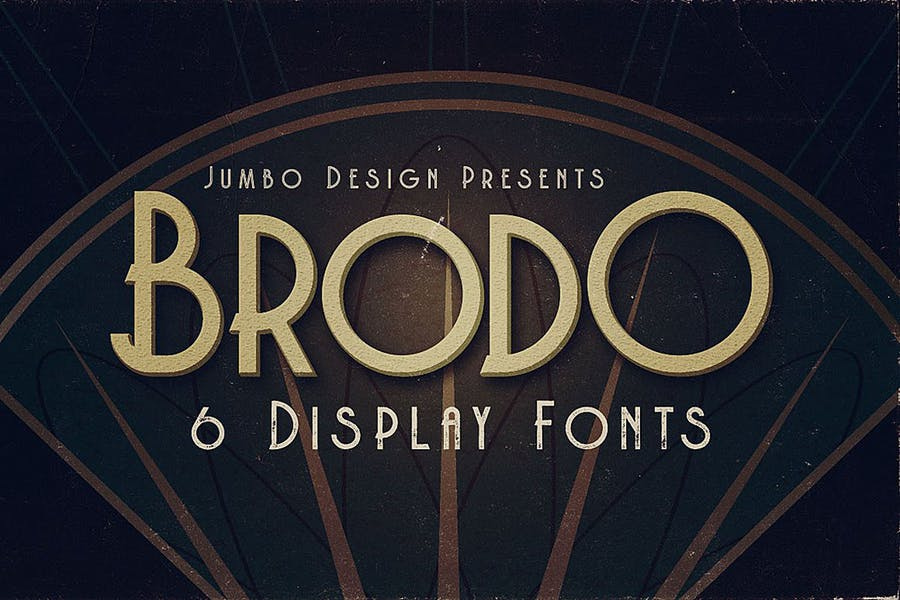
Brodo - Display Font
Brodo Display Font is perfect for Italian restaurant branding, traditional food packaging, heritage cuisine marketing, rustic trattoria signage, artisan culinary communications, authentic cooking school advertising, family recipe publications, and warm hospitality campaigns.
What makes Brodo Display Font exciting is its culinary warmth that embodies the hearty comfort and traditional richness of Italian cuisine with family heritage and authentic cooking traditions. The font features robust letterforms with nourishing proportions and traditional character that evoke simmering broths, family kitchens, and the comforting warmth of generations-old recipes and culinary wisdom. Its distinctive culinary styling and traditional appeal communicate nourishment, family heritage, and authentic cooking, making every message feel seasoned with tradition and touched by the loving warmth of family culinary heritage and traditional Italian hospitality.
The Brodo Display Font family includes regular weight with uppercase and lowercase letters, numerals, punctuation marks, and special characters. Premium versions often feature culinary alternates and traditional elements that enhance the warm, authentic aesthetic perfect for food and hospitality applications.
This nourishing culinary typeface brings instant authenticity and traditional credibility to any food-focused project. Brodo Display Font Free Download delivers exceptional results for Italian restaurants and culinary businesses seeking to communicate traditional cooking, family heritage, and authentic Italian cuisine to food enthusiasts and traditional cooking appreciators.
The traditional character of Brodo Display Font makes it particularly valuable for family restaurants, culinary schools, and authentic Italian food producers. Its excellent readability ensures menu descriptions and culinary messaging remain clear while maintaining the distinctive traditional aesthetic that appeals to customers seeking authentic Italian culinary experiences and family cooking traditions.
Culinary heritage marketers appreciate how Brodo Display Font effortlessly conveys cooking authenticity and family tradition. The font's robust proportions and traditional details create appetizing brand materials that establish connections with audiences who value authentic Italian cuisine, family recipes, and the nourishing warmth of traditional cooking and culinary heritage.
The versatile warmth of this typeface extends to cooking education, traditional food preservation, and culinary tourism where authentic tradition enhances culinary credibility and family appeal. Brodo Display Font Free Download provides creative professionals with an essential tool for developing memorable, tradition-driven designs that resonate with audiences who embrace Italian culinary heritage, family cooking traditions, and the nourishing comfort of authentic brodo in their dining and culinary experiences.